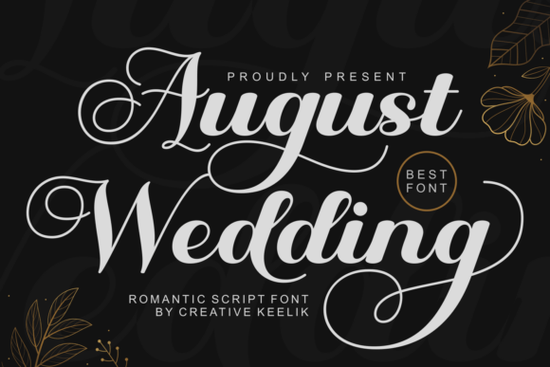
If you’re putting together wedding stationery, branding for a bridal business, or even personal keepsakes for a special day, the August Wedding Font is worth a closer look. It’s a script font designed with soft, flowing lines and delicate swashes that feel both romantic and intentional perfect for moments meant to be remembered.
This isn’t a font that shouts. It whispers elegance. The letterforms have just enough flourish to feel luxurious without becoming hard to read. That balance makes it surprisingly versatile whether you’re designing save-the-dates, menu cards, or signage for a boutique wedding venue.
What kinds of projects does this font work best for?
The August Wedding typeface shines in contexts where emotion matters as much as information. Think:
- Wedding invitations especially when paired with a clean serif like Francy Tiguan for contrast
- Bridal shower decor banners, place cards, welcome signs
- Small business branding for florists, planners, or photographers specializing in weddings
- Digital templates Canva or Etsy sellers can bundle it into editable invitation kits
It also works well for vow books, seating charts, or even embroidered monograms if you’re working with SVG files. The PUA encoding means all those decorative glyphs and alternate characters are accessible in most design tools no digging through character maps or installing extra fonts.
How do I pair it with other fonts without clashing?
Because August Wedding has such expressive strokes, pairing it with something too ornate can feel overwhelming. A simple serif or sans-serif helps ground the design. For example:
- Try Softly Written if you want to layer two scripts its lighter weight complements August Wedding’s drama
- Use a minimalist sans like Montserrat or Lato for body text
- A structured serif like Playfair Display adds sophistication without competing
You don’t always need a pair, though. Sometimes letting August Wedding stand alone centered on a card or framed in negative space lets its personality really come through. Just keep line spacing generous and avoid cramming too many words together.
Is this font beginner-friendly for non-designers?
Yes and that’s one of its quiet strengths. Even if you’re new to design software like Canva, Silhouette Studio, or Adobe Illustrator, the PUA-encoded characters mean you can access stylistic alternates and swashes directly from your font menu (usually under “Glyphs” or “OpenType Features”). No plugins or add-ons required.
How does it compare to other romantic script fonts?
There’s no shortage of wedding fonts out there, but August Wedding holds its own by focusing on readability alongside beauty. Fonts like Daisy lean playful and colorful, which suits casual events. Others go ultra-thin or overly calligraphic, which can be harder to scale or print clearly.
August Wedding strikes a middle ground: graceful but legible, detailed but not fussy. It doesn’t rely on extreme contrast or exaggerated tails, so it prints cleanly even at smaller sizes useful for RSVP cards or favor tags.
Any tips for getting the most out of this font?
A few practical ideas:
- Test print first. Some printers handle fine lines better than others check how the swashes reproduce before committing to a full batch.
- Use sparingly. One or two words in August Wedding often have more impact than whole paragraphs.
- Adjust tracking. Slightly increasing letter spacing can help the flourishes breathe, especially in uppercase settings.
- Layer with texture. Try placing it over watercolor backgrounds or subtle linen patterns the contrast enhances its elegance.
If you’re sourcing fonts for client work, consider bundling August Wedding with coordinating assets maybe a set of floral clipart or gold foil textures. That kind of curated package adds value and saves your clients time.
And if you’re exploring similar styles, Creative Fabrica’s collection includes plenty of alternatives. Whether you’re drawn to the whimsy of Daisy or the understated charm of Softly Written, there’s room to mix and match based on the mood you’re creating.
This font doesn’t try to be everything. It knows what it’s good at adding a touch of romance, clarity, and quiet luxury and it does that very well. If that’s the feeling you’re trying to create, it’s definitely worth adding to your toolkit.